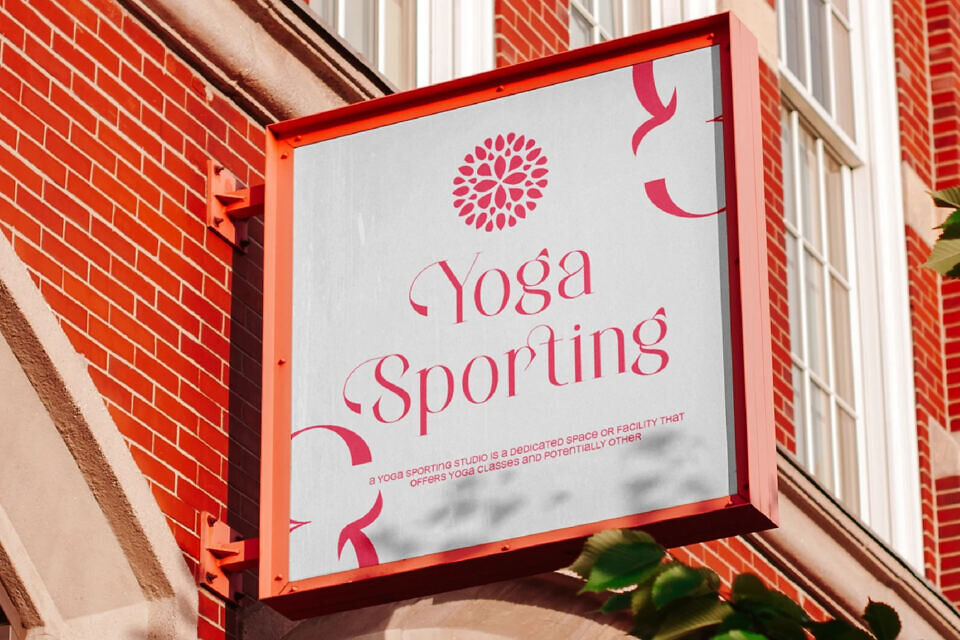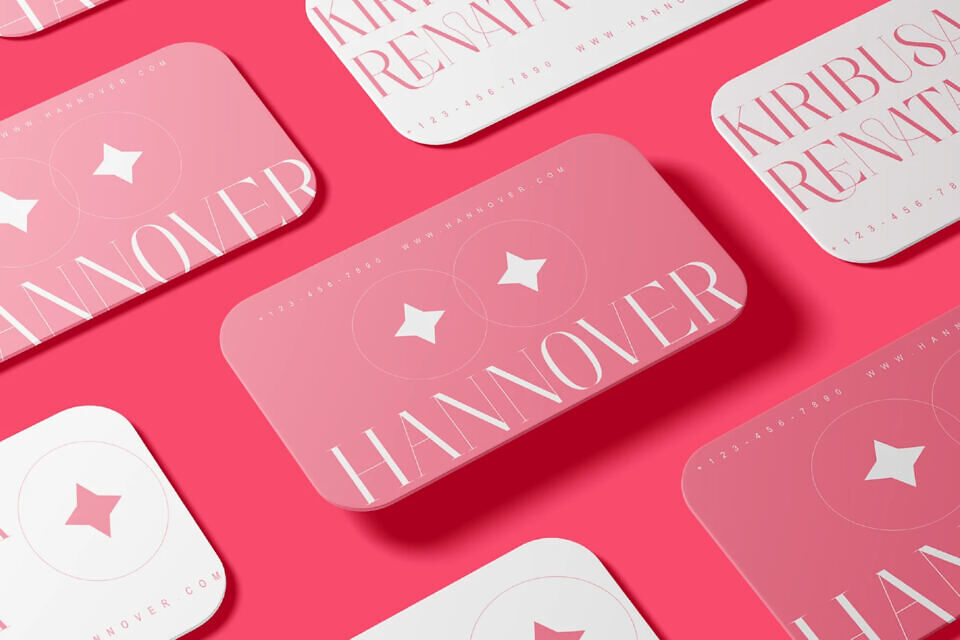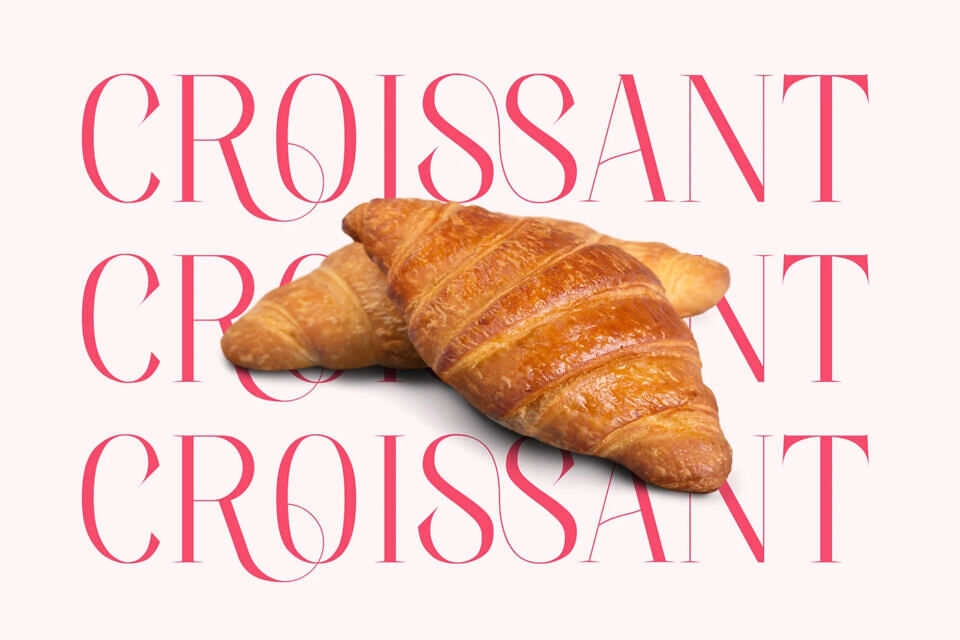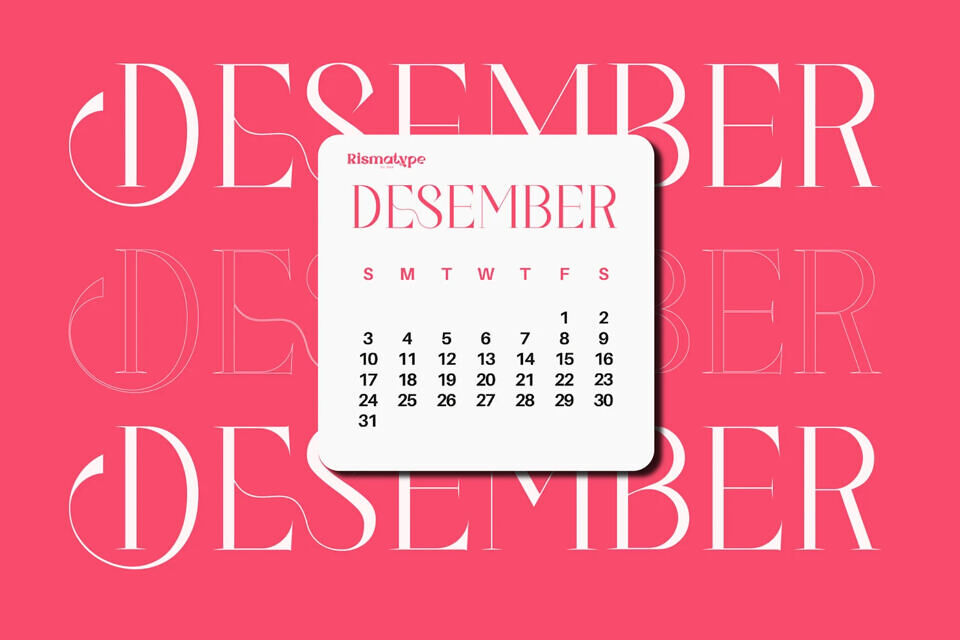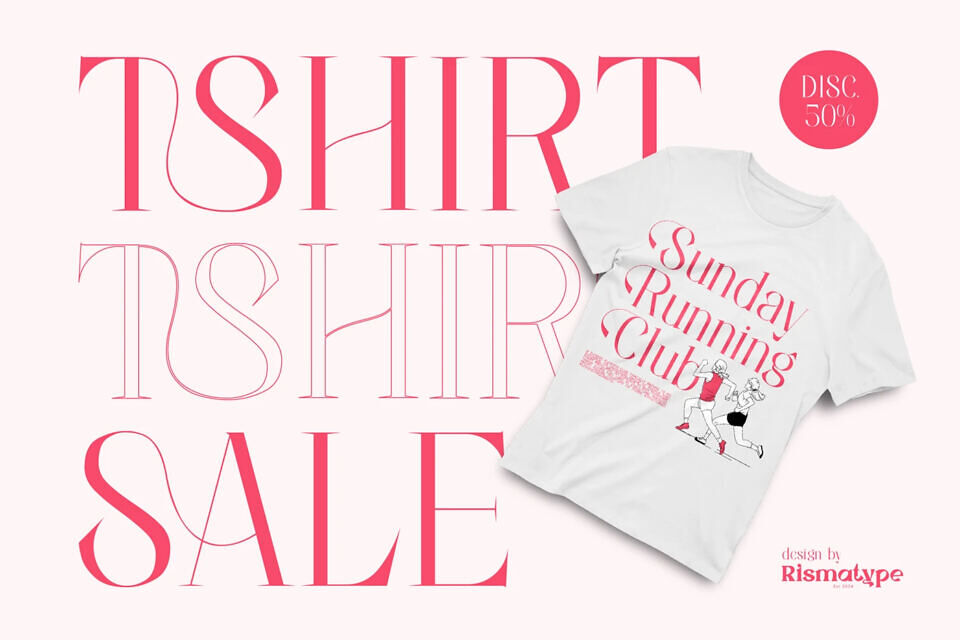
Flare Majestic Font
Flare Majestic is an elegant serif display font crafted to exude luxury and captivating visual appeal. With refined, slender lines and unique curves, this font is perfect for elevating design projects that demand style, such as:
• Branding & Logos: Make a memorable statement.
• Editorial & Magazines: Add elegance and professionalism.
• Invitations & Cards: Bring a touch of luxury to special moments.
Create a lasting impression with every character of Flare Majestic. Infuse your designs with elegance and modernity that stands out!